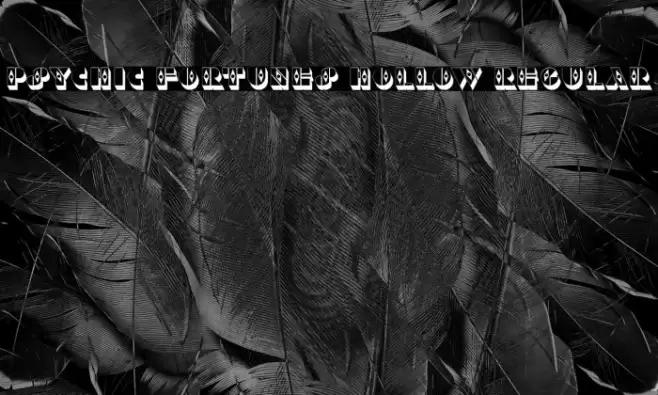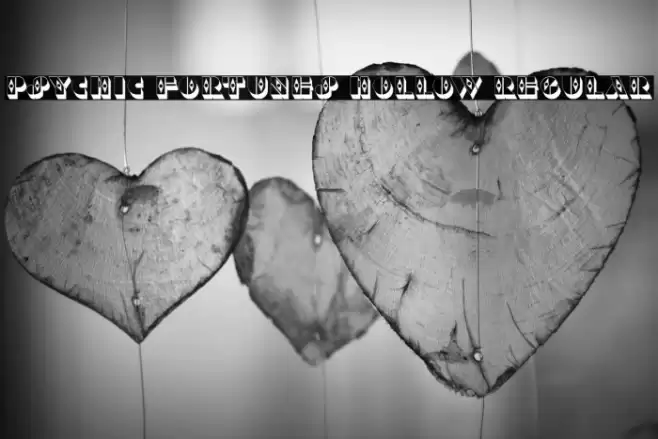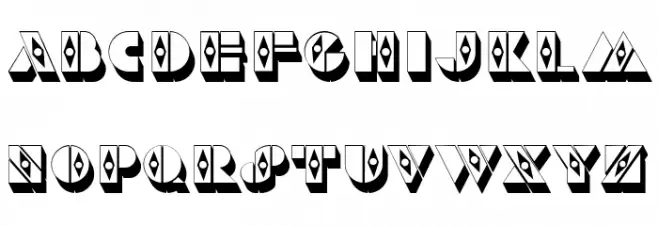
Psychic Fortunes Hollow Regular Font
Psychic Fortunes Hollow Regular Description
This font features a bold and decorative style with a unique hollow design. Each letter is crafted with geometric shapes and intricate patterns, giving it a mystical and eye-catching appearance. The characters have a three-dimensional effect, enhanced by shadowing that adds depth. The font is highly stylized, making it suitable for creative and artistic projects. Its distinct look is reminiscent of fortune-telling and mystical themes, making it perfect for designs that require a touch of magic and mystery.
A bold, decorative font with a mystical, three-dimensional design from Uncategorized fonts.
- Proposed Projects: Ideal for posters, book covers, event invitations, and branding that require a magical or mystical theme.